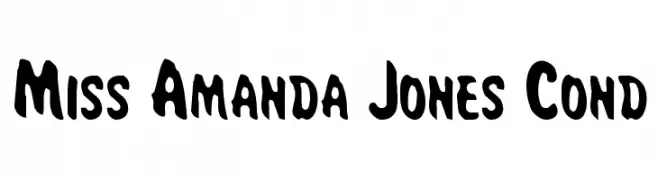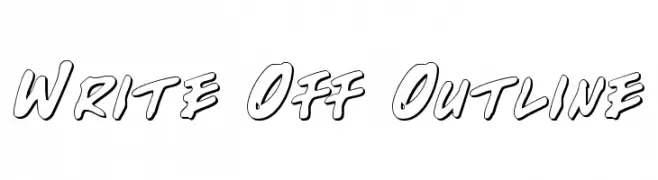
A playful and artistic font with cartoonish character illustrations.
Whimsical, illustrative font with underwater and diving motifs.
A playful decorative font with unique stick figure characters.
A collection of silhouette illustrations depicting dynamic scenes and characters.
Abstract, human-like silhouettes form each character in a non-traditional, illustrative style.
A modern, oblique, and condensed font with a sleek appearance.
A modern, condensed sans-serif font with a clean and streamlined appearance.
A modern, oblique, and condensed font with consistent stroke thickness.
A modern, condensed sans-serif font with a clean and professional appearance.
A playful dingbat font with quirky, hand-drawn illustrations.
Cartoon animal dingbat font featuring humorous scenes.
Hand-drawn, music-themed decorative font with unique illustrations for each character.
A bold, traditional blackletter font with intricate, angular strokes.
A playful, handwritten font with bold, dynamic strokes and an informal style.
Illustrative, story-driven font with biblical and ancient motifs.
An artistic font with abstract, Picasso-inspired face designs for each character.
Cartoonish dingbat font featuring humorous bad luck scenarios.
Illustrative dingbat font with sleep-themed drawings.
Ornate, decorative frames and borders with vintage flourishes.
Abstract shapes resembling Pac-Man, not a font.
A bold, 3D font with a strong, layered appearance and thick black outlines.
An ornate, geometric font with intricate patterns and uppercase letters.
An intricate and decorative font with ornate patterns and high contrast.
A playful, handwritten-style font with dynamic strokes and irregular shapes.
An abstract, glitch-inspired font with fragmented, pixelated characters.
A bold, tall font with consistent stroke width and a modern, commanding presence.
An intricate blackletter font with ornate, gothic-inspired letterforms.
Cartoonish, music-themed illustrative display font.
A high-contrast, artistic font with elegant curves and unique serifs.
A display font made up of illustrated human faces for each character.
Cartoonish, political caricature font with unique illustrated glyphs.
Portrait-based decorative font with illustrated human faces.
Abstract, creature-inspired decorative font with hand-drawn style.
A quirky, decorative font with surreal, illustrated stick-figure characters.
Whimsical pictogram font with abstract and stick-figure characters.